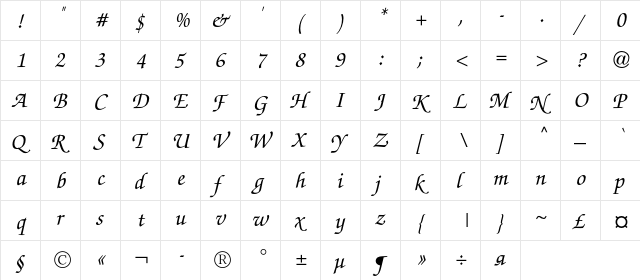
InicialC Regular Font Preview
InicialC Regular
Design Context for InicialC Typeface
InicialC takes a measured approach to typography — its balanced proportions and neutral character make it a reliable workhorse for both digital and print work.